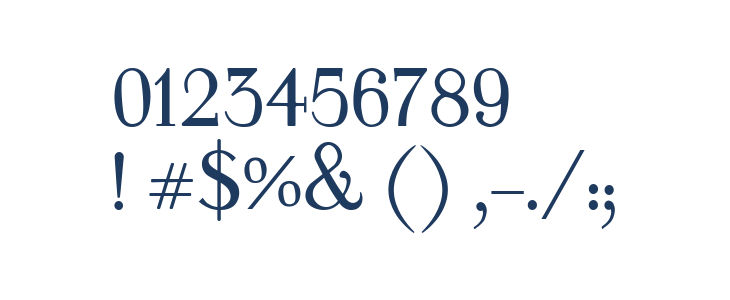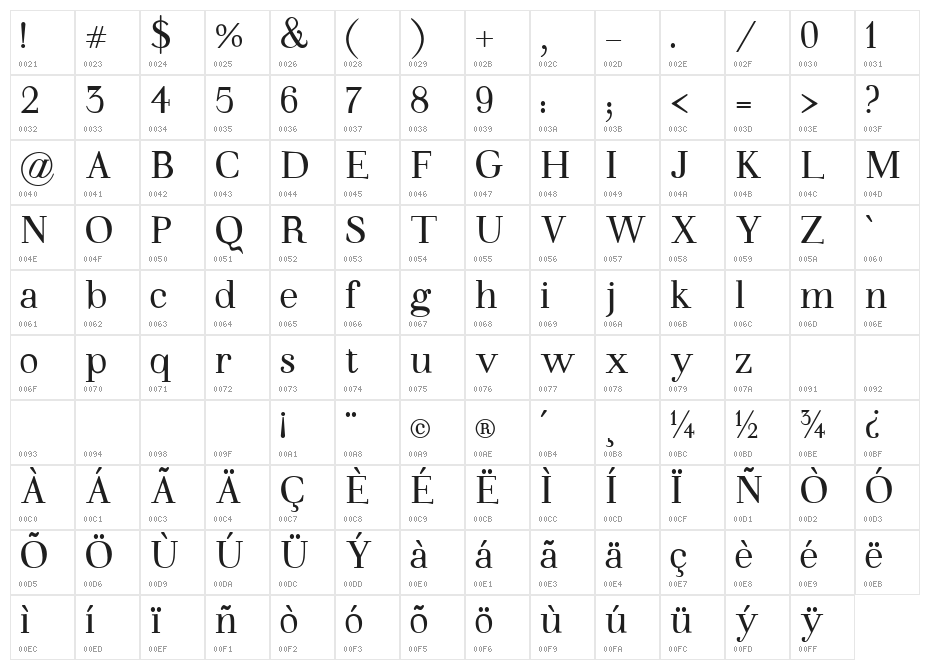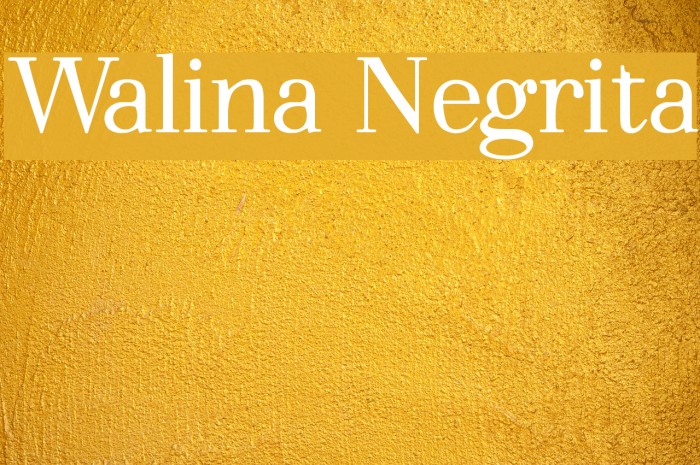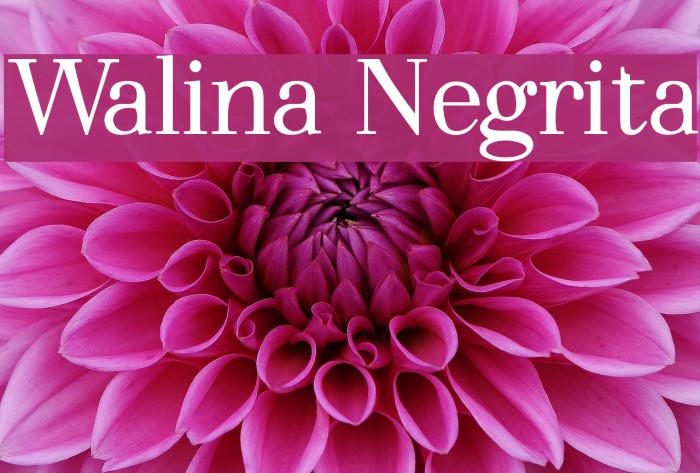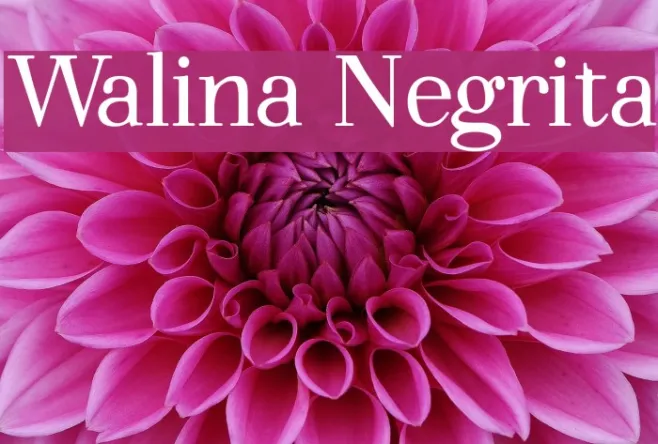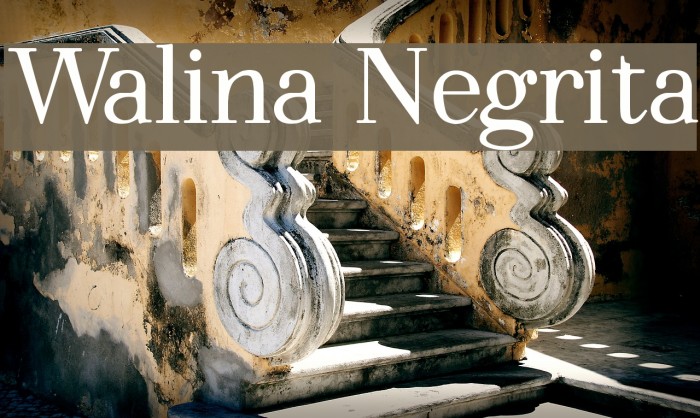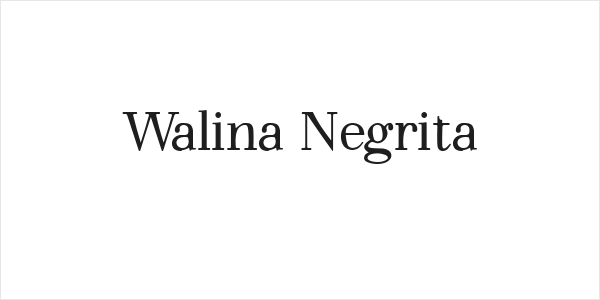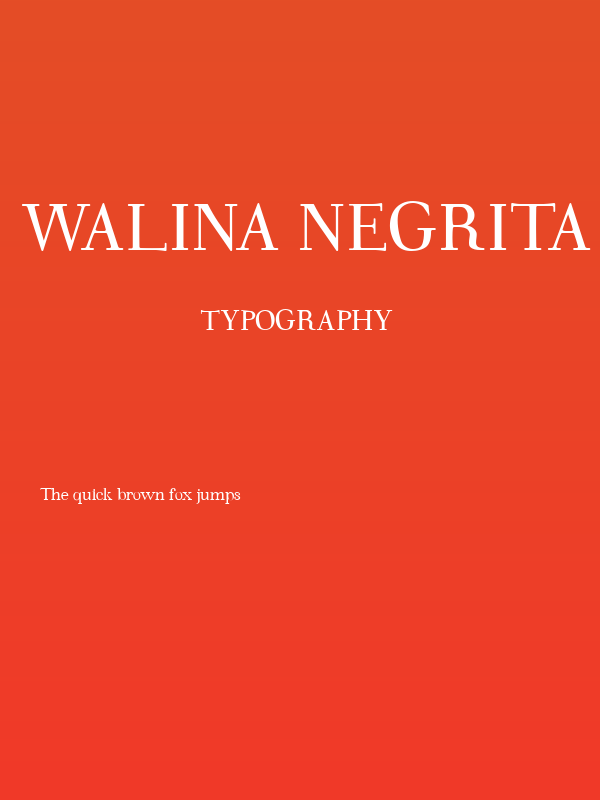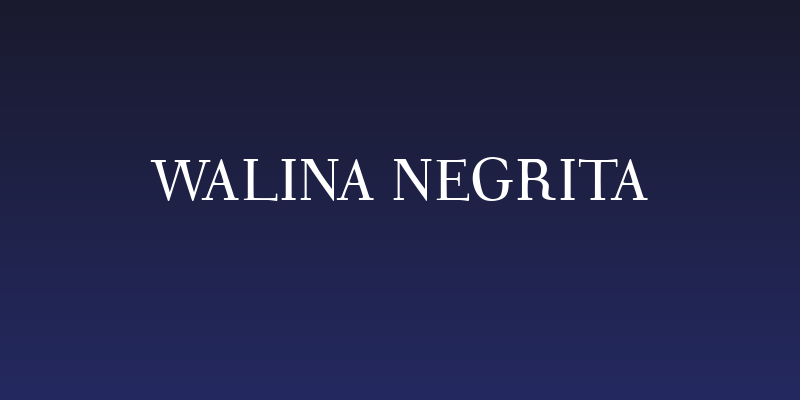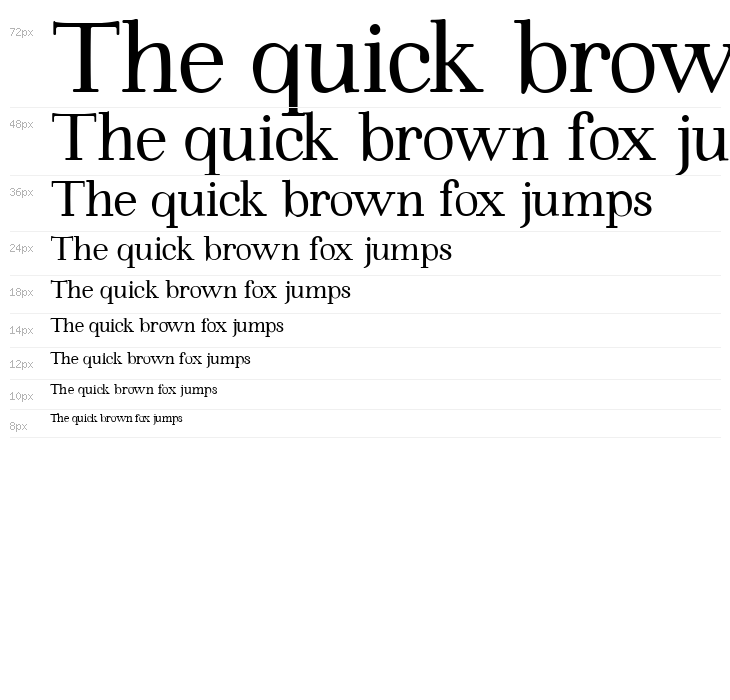
Walina Negrita Font
Walina Negrita Description
This font exhibits a classic serif style with a strong presence and elegant curves. The uppercase letters are bold and commanding, while the lowercase letters maintain a refined and balanced appearance. The numerals are clear and distinct, making them suitable for both display and text purposes. The special characters are well-integrated, maintaining the overall aesthetic of the font. The serifs are pronounced, adding a traditional touch, yet the overall design feels modern and versatile. This font is ideal for projects that require a sophisticated and authoritative look.
| Proposed Projects | Ideal for editorial design, book covers, branding, and formal invitations. |